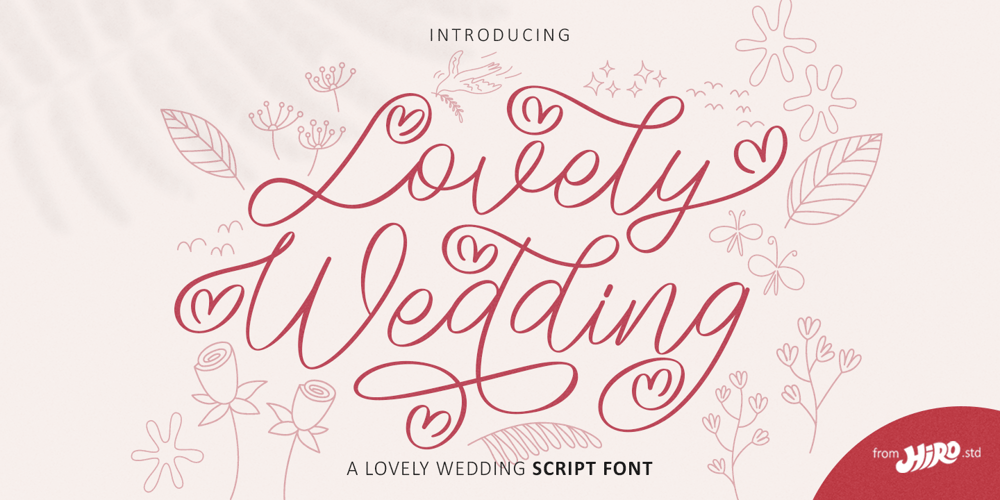
Lovely Wedding Font Family was designed by Chairul Ashar and published by HIRO.std. Lovely Wedding contains 2 styles and family package options. Lovely Wedding is a lovely Wedding script font.This font describes about casual, classy, luxury, elegant, stylish, dynamic, easy to use and will bring a good harmony when the letters are connected and paired each other. FEATURES- Support Opentype Features- Support Ligatures- Alternate Uppercase and Lowercase- Swash- Numbering and Punctuations- PUA Encoded Characters- Multilingual Support- Bonus Pack – Works on PC or MacUSE Lovely Wedding Font works great in any wedding invitation, product packaging, logotype, quotes and any projects that need all about love script taste.Enjoy using!Thanks.HIRO.std